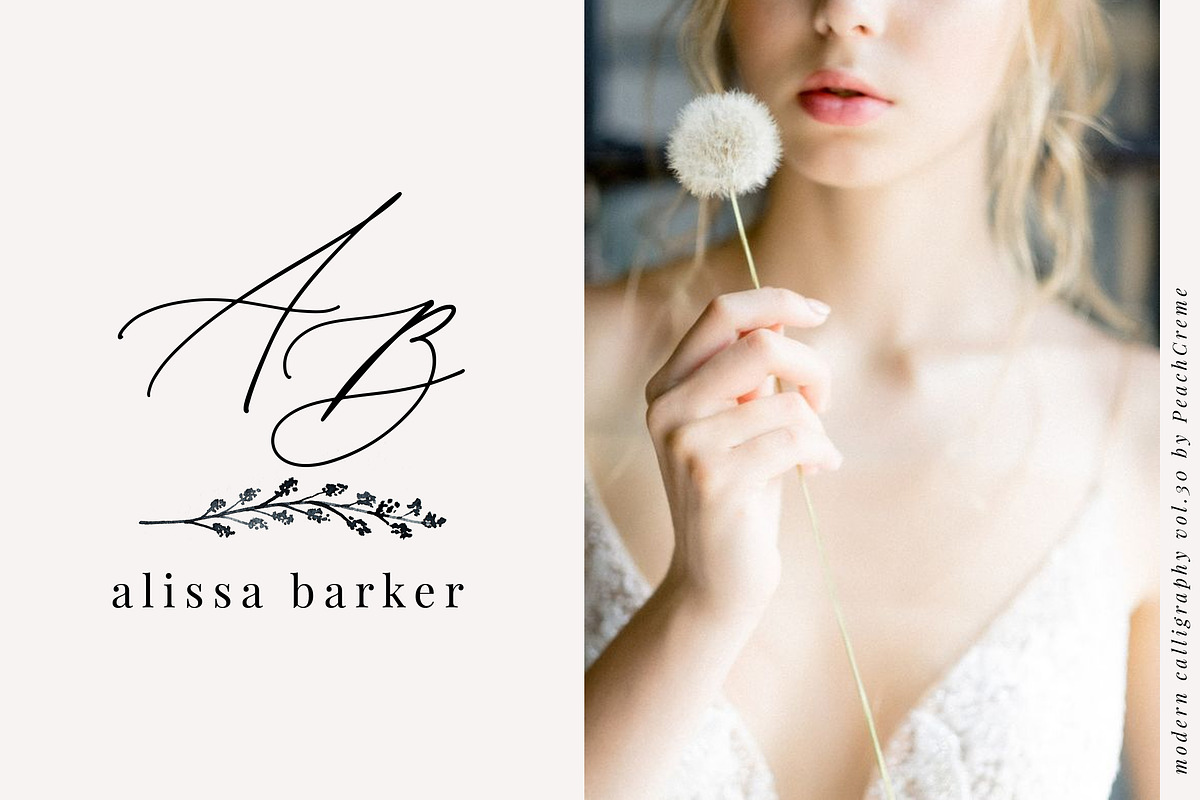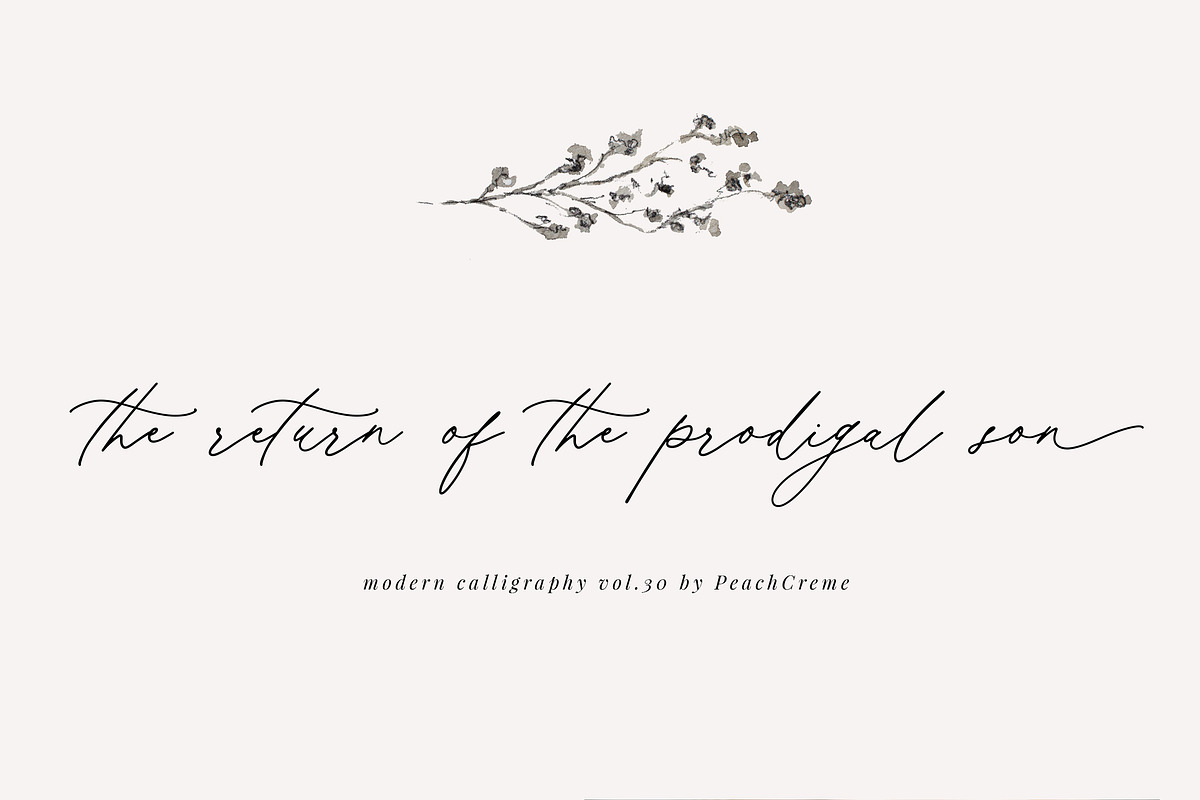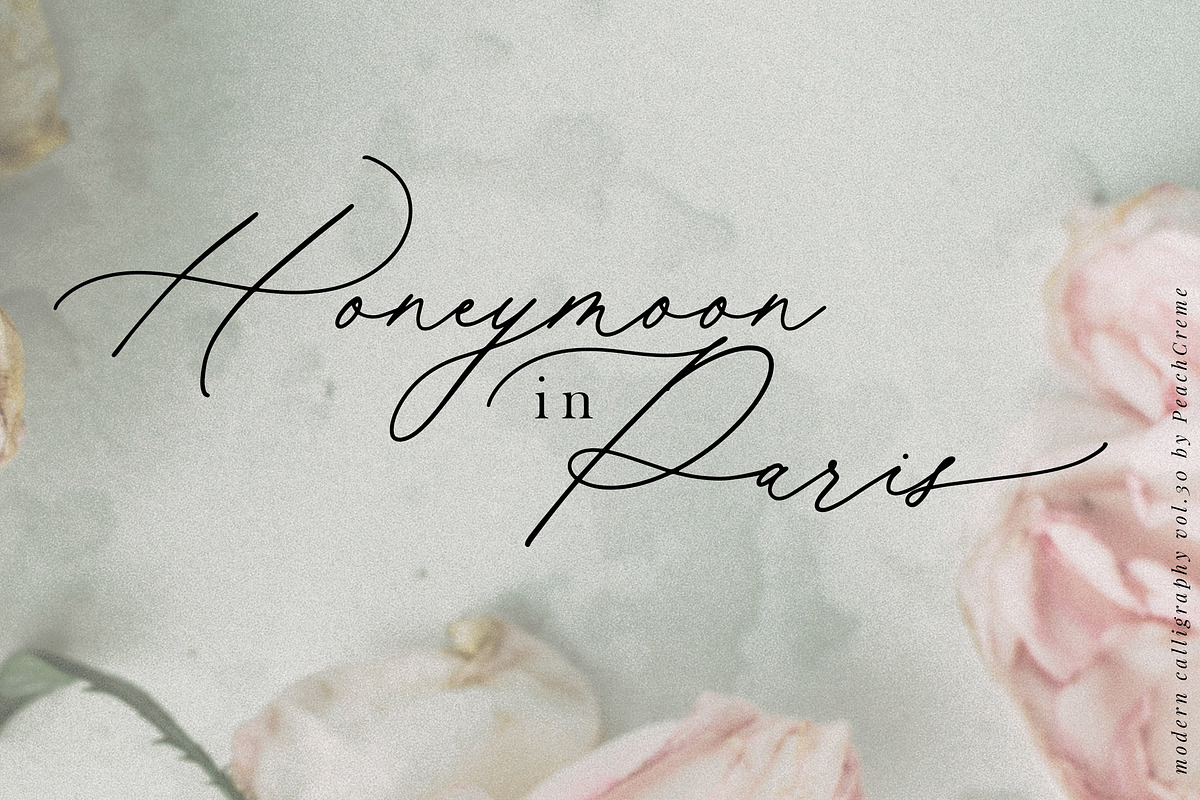
Hermitage is a chic modern calligraphy font. Hermitage includes a full set of lovely uppercase and lowercase letters, multilingual symbols, numerals, punctuation and ending lowercase swashes. The font has a smooth texture, so would be perfect for all types of printing techniques such as embroidery, laser cutting, gold foil etc.